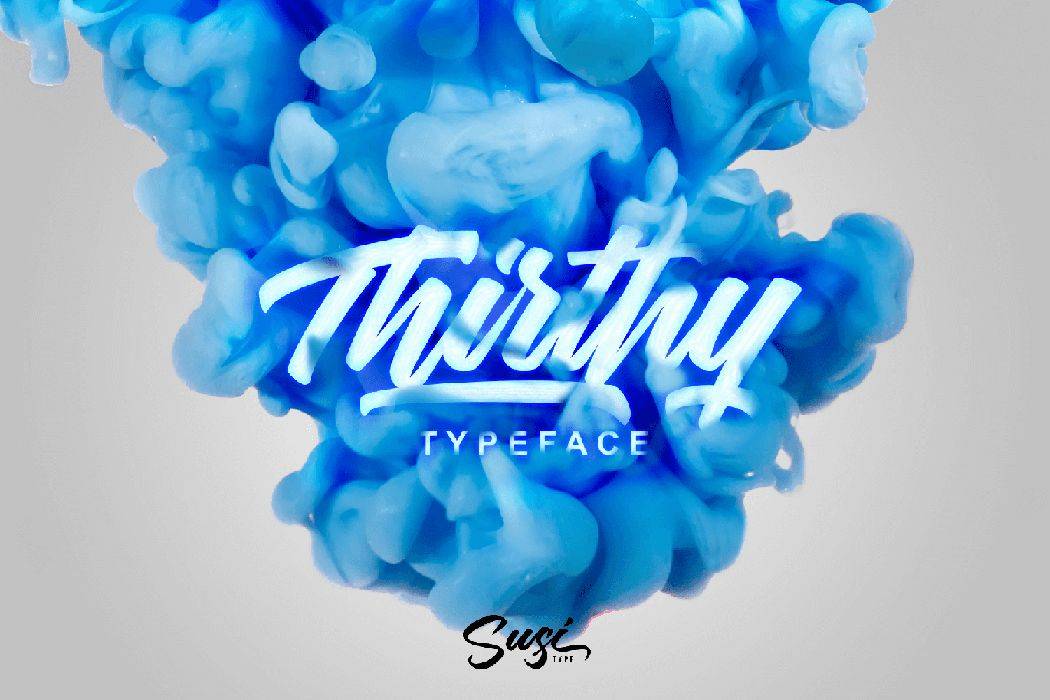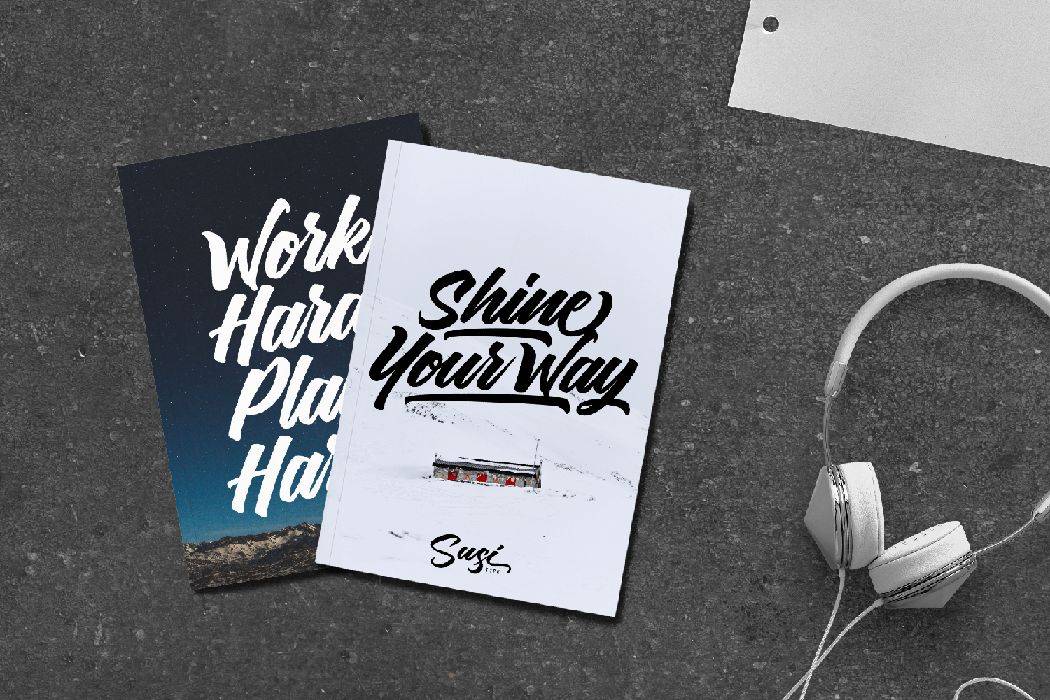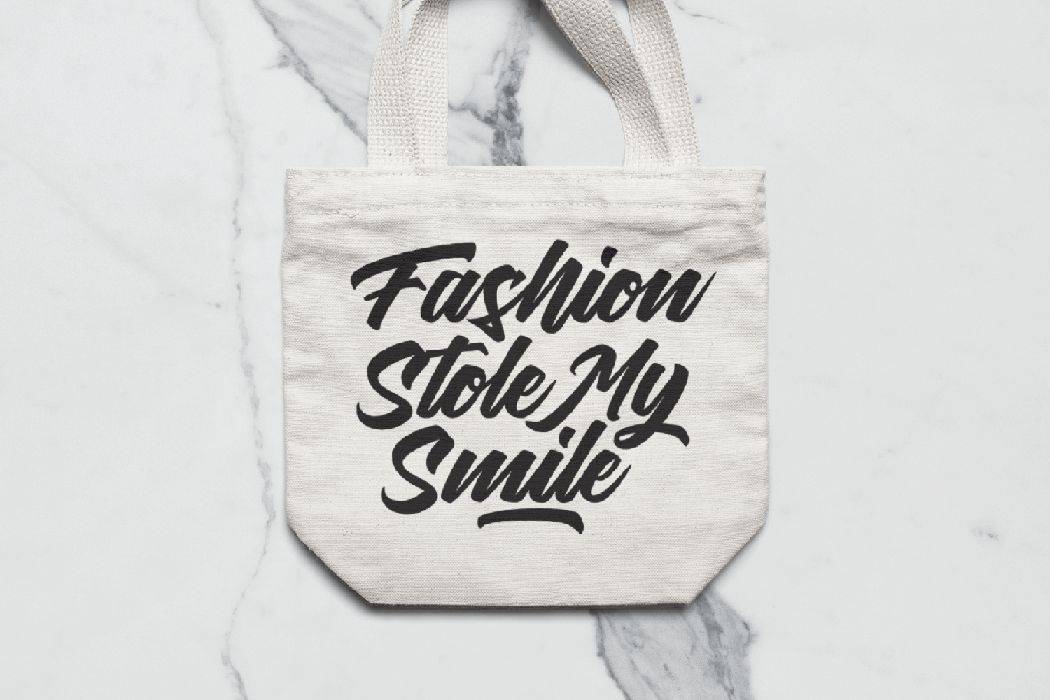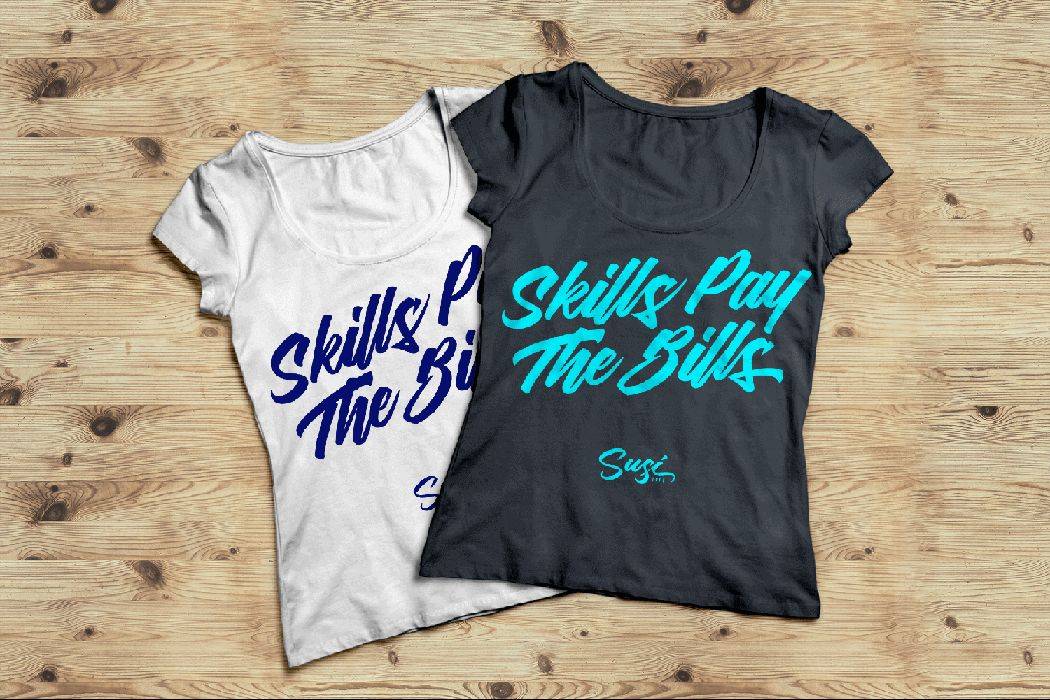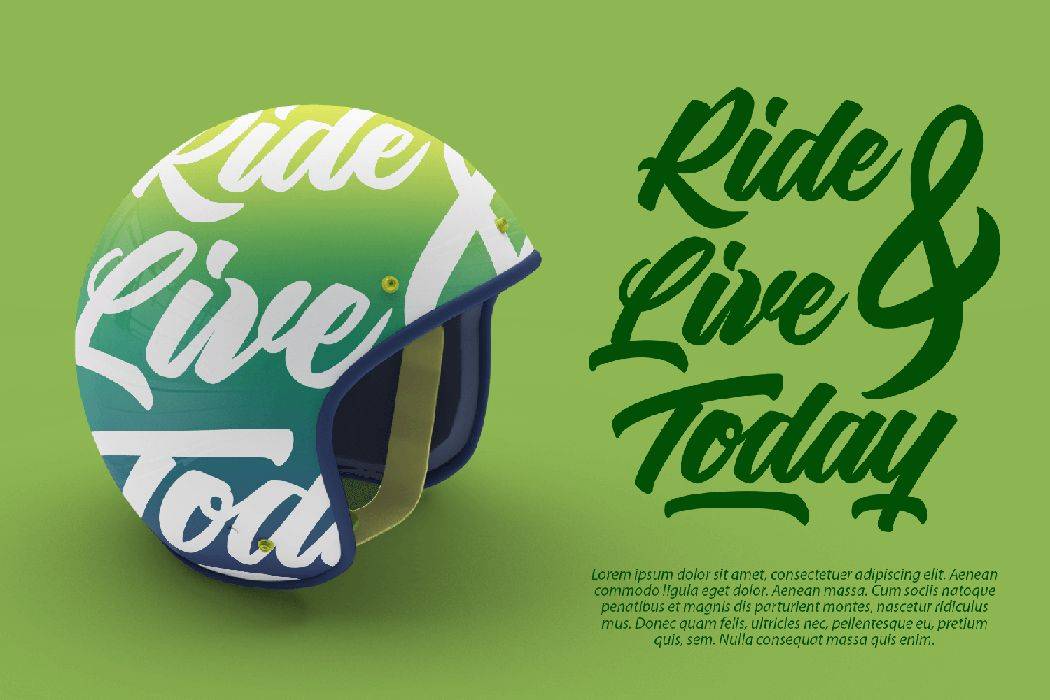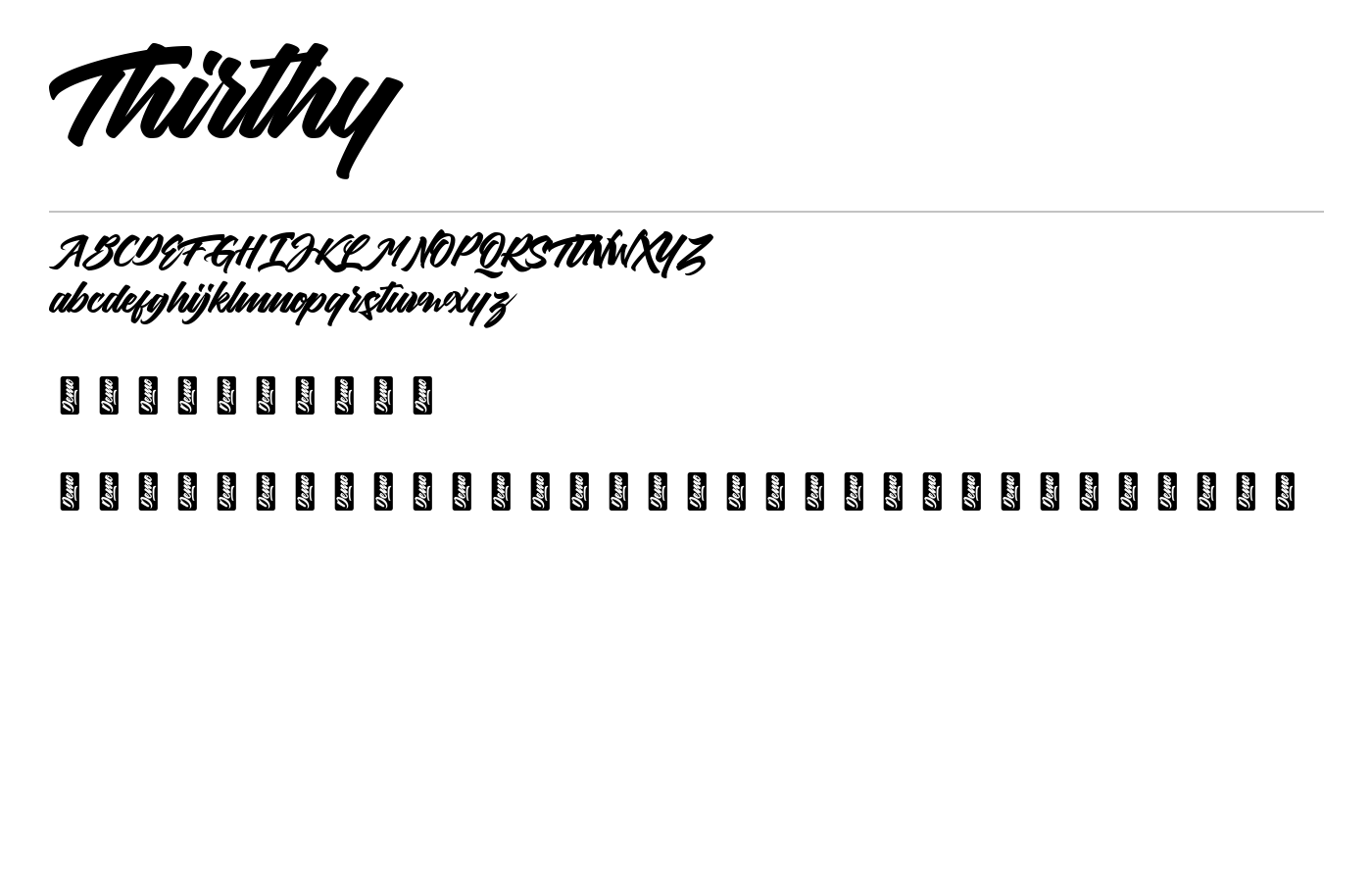
Thirthy is a bold, modern script font with a strong, flowing brushstroke style that conveys energy and creativity. Its dynamic, handwritten letterforms make it perfect for branding, headlines, and designs that seek a personal yet impactful touch. This font works well for fashion, sports, and lifestyle projects where a lively and confident voice is desired.
Thirthy Font
About Thirthy Font
| Font family | Thirthy Font |
| Designer | Susitype |